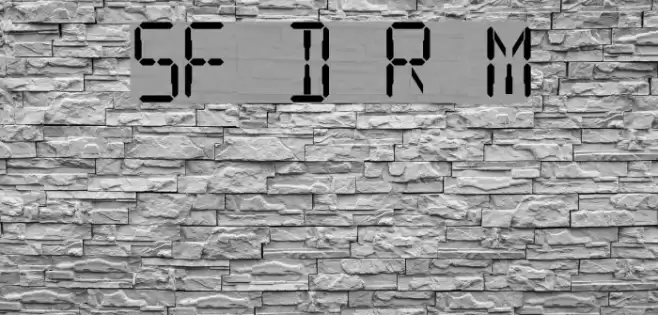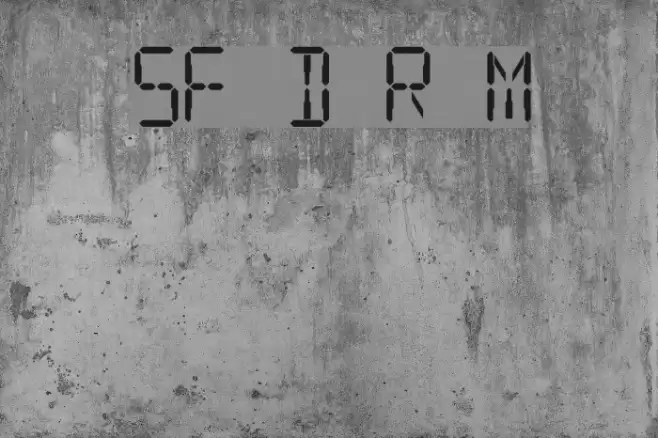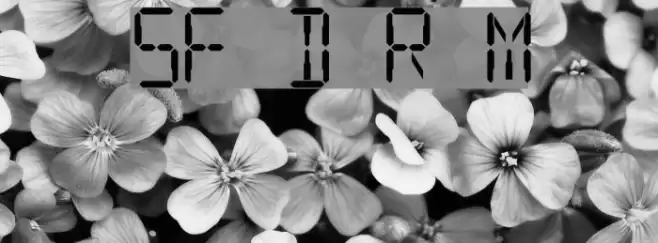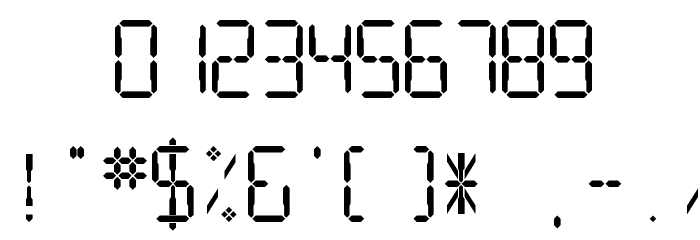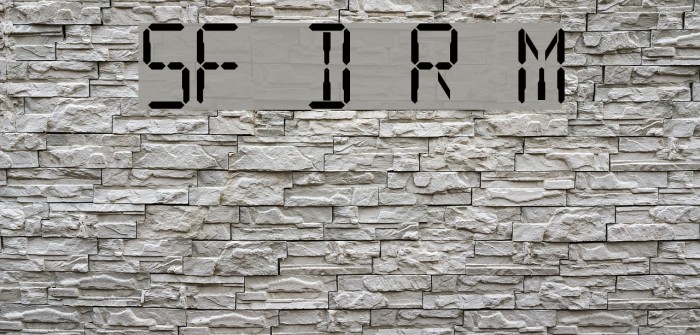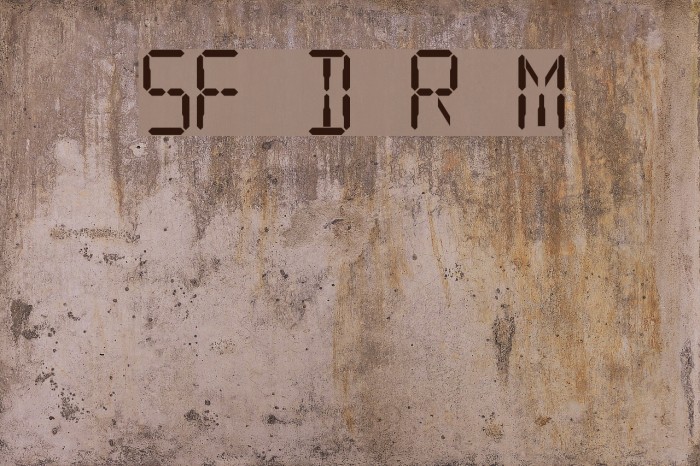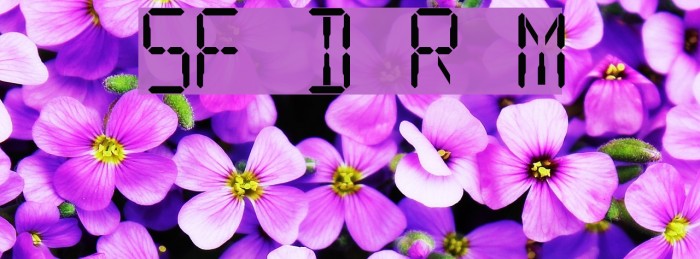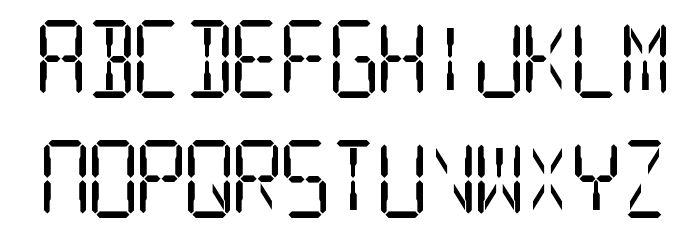
SF Digital Readout Medium Font
SF Digital Readout Medium Description
This font features a digital, segmented style reminiscent of LED displays commonly found in digital clocks and calculators. Each character is constructed from a series of straight lines and angles, creating a geometric and mechanical appearance. The uppercase and lowercase letters share a similar structure, maintaining uniformity across the alphabet. Numbers and special characters follow the same segmented design, enhancing the cohesive digital aesthetic. The font's design is clean and precise, making it ideal for conveying a modern, technological feel.
A digital, segmented font inspired by LED displays, offering a modern and technological look from Uncategorized fonts.
- Proposed Projects: Ideal for digital interfaces, tech-themed designs, retro digital displays, and futuristic branding projects.
- Use Case: Headlines, Digital displays, Tech interfaces